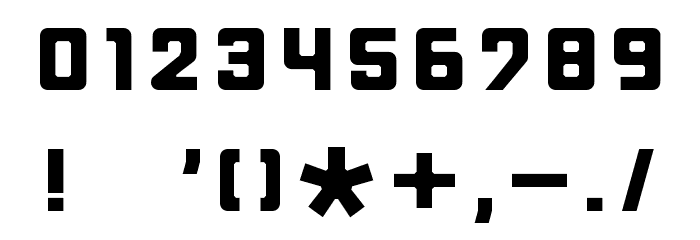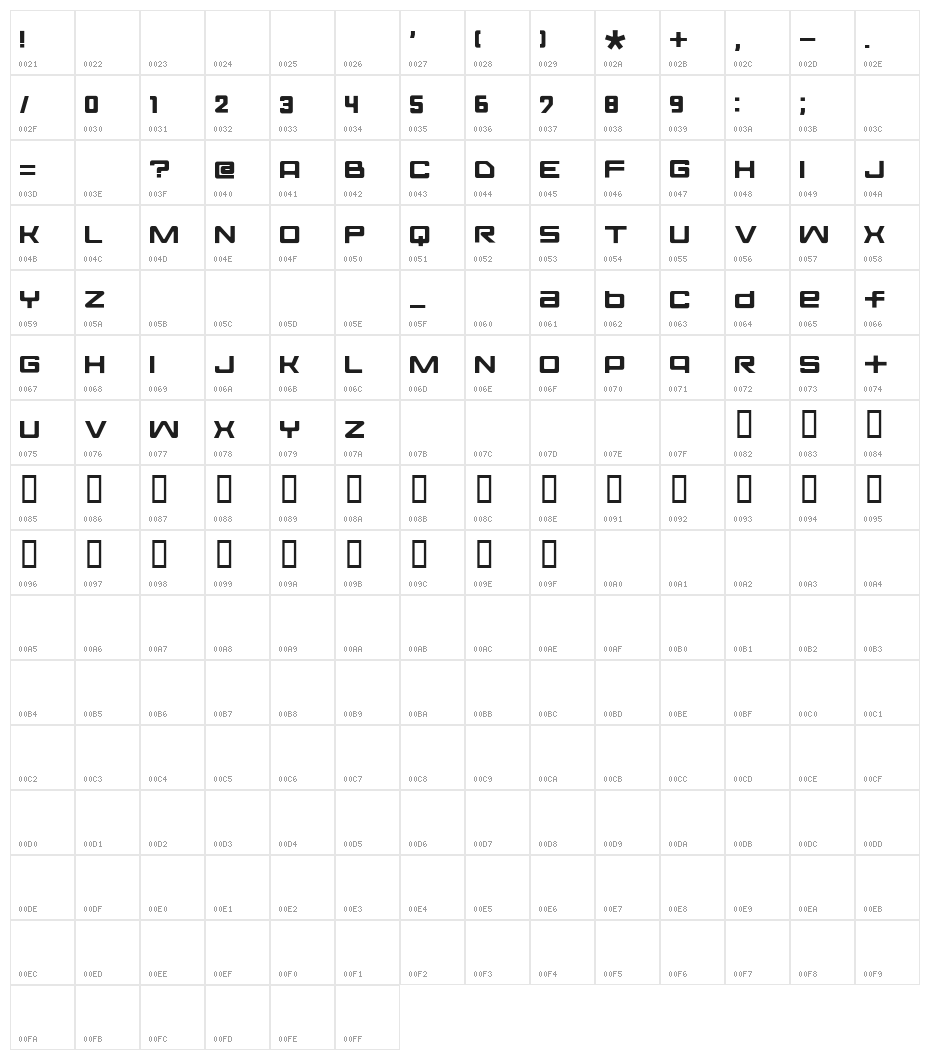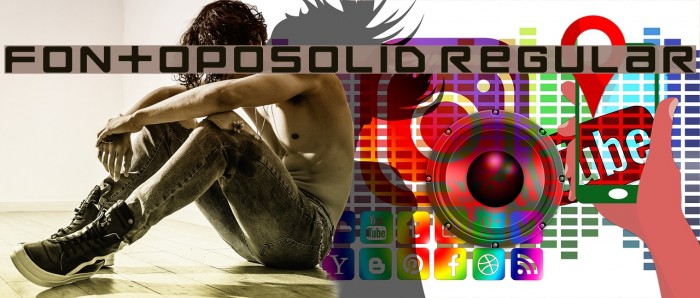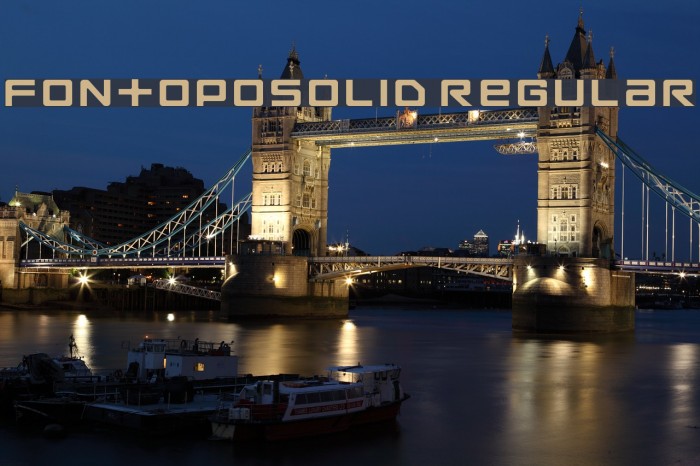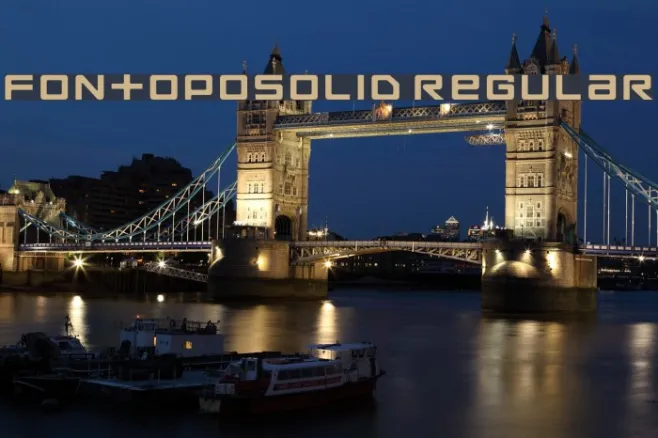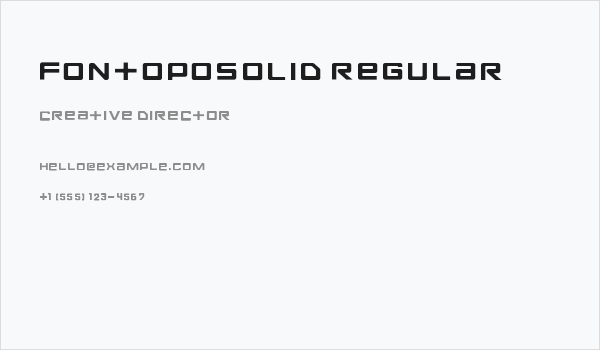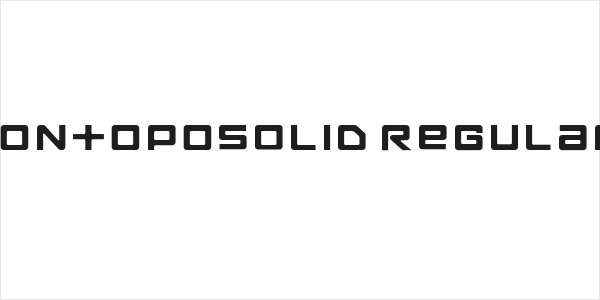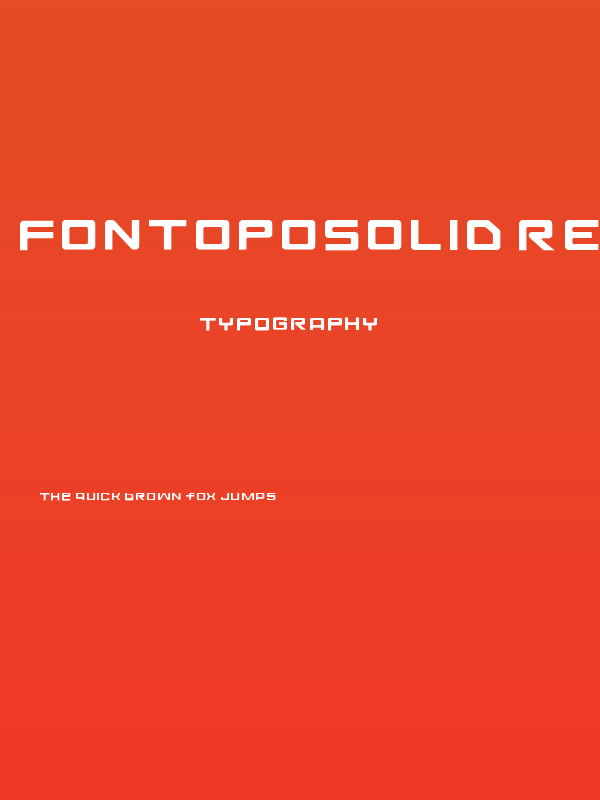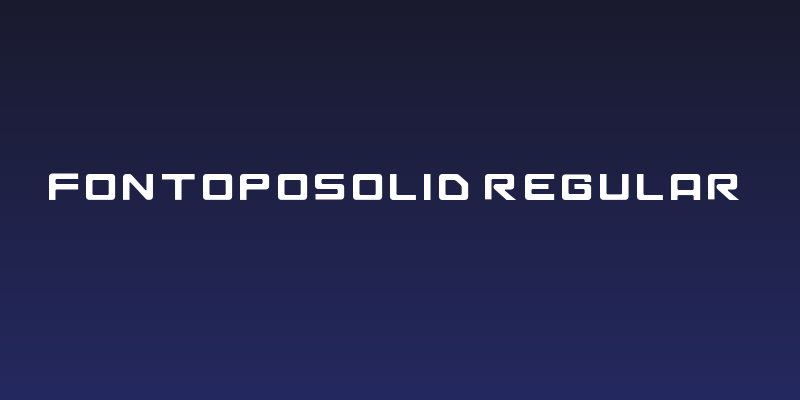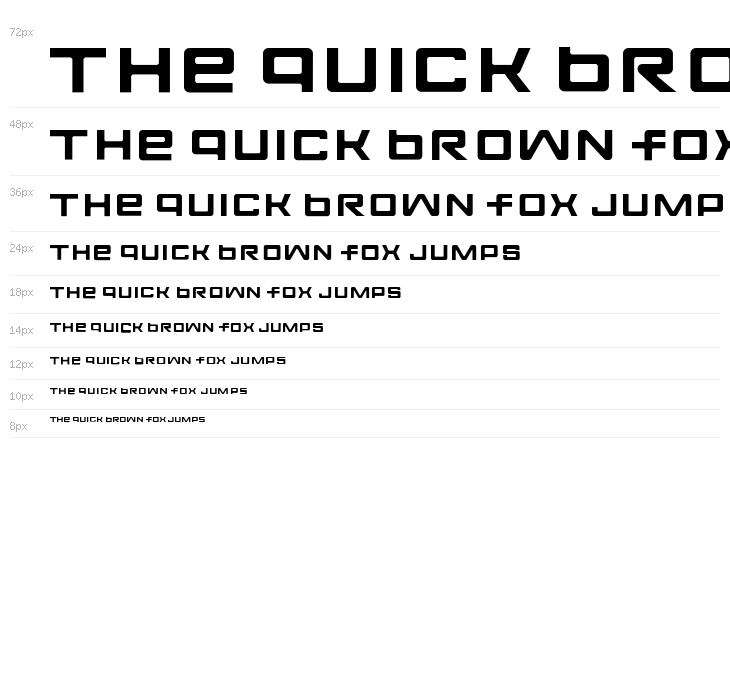
FontopoSOLID Regular Font
FontopoSOLID Regular Description
This font features a bold and geometric design with a strong, solid appearance. The characters are constructed with thick, uniform strokes, giving them a robust and sturdy feel. The angular shapes and straight lines contribute to a modern and industrial aesthetic, making it suitable for impactful and attention-grabbing designs. The uppercase and lowercase letters maintain a consistent style, with a slight variation in the lowercase set to enhance readability. The numerals and special characters complement the overall design, ensuring a cohesive look across all elements.
| Proposed Projects | Ideal for branding, posters, headlines, and any design requiring a strong visual impact. |